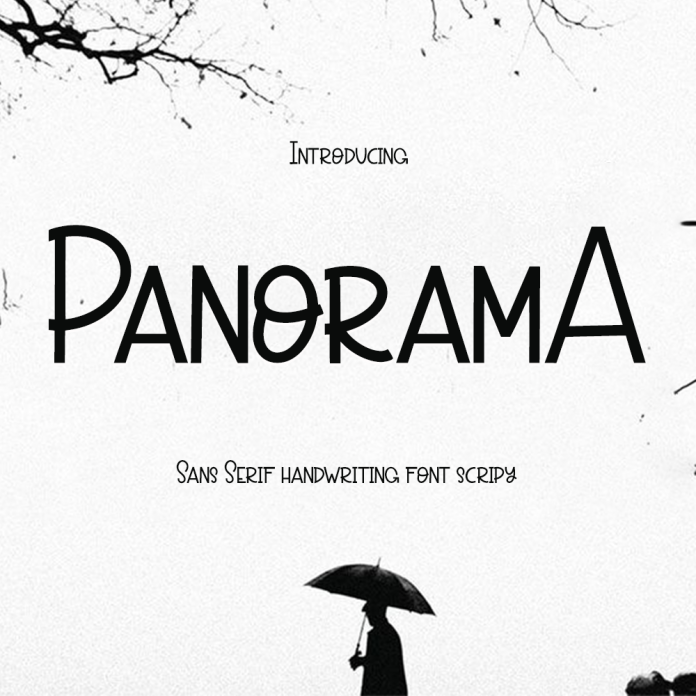
Panorama is a premium font that combines elements of both Sans Serif and Script styles. Its sleek and modern design features clean lines and elegant flourishes, making it perfect for luxury branding and high-end design projects. Ideal for logos, packaging, and editorial design, Panorama adds a touch of sophistication to any visual composition.